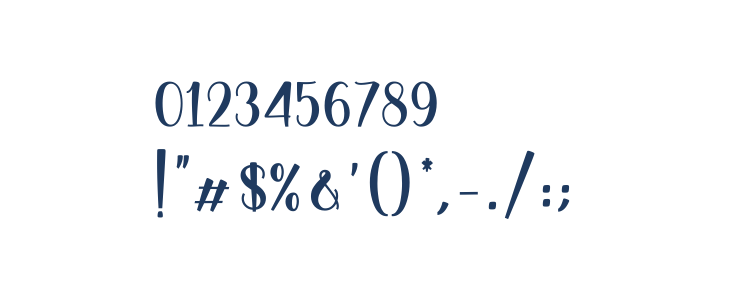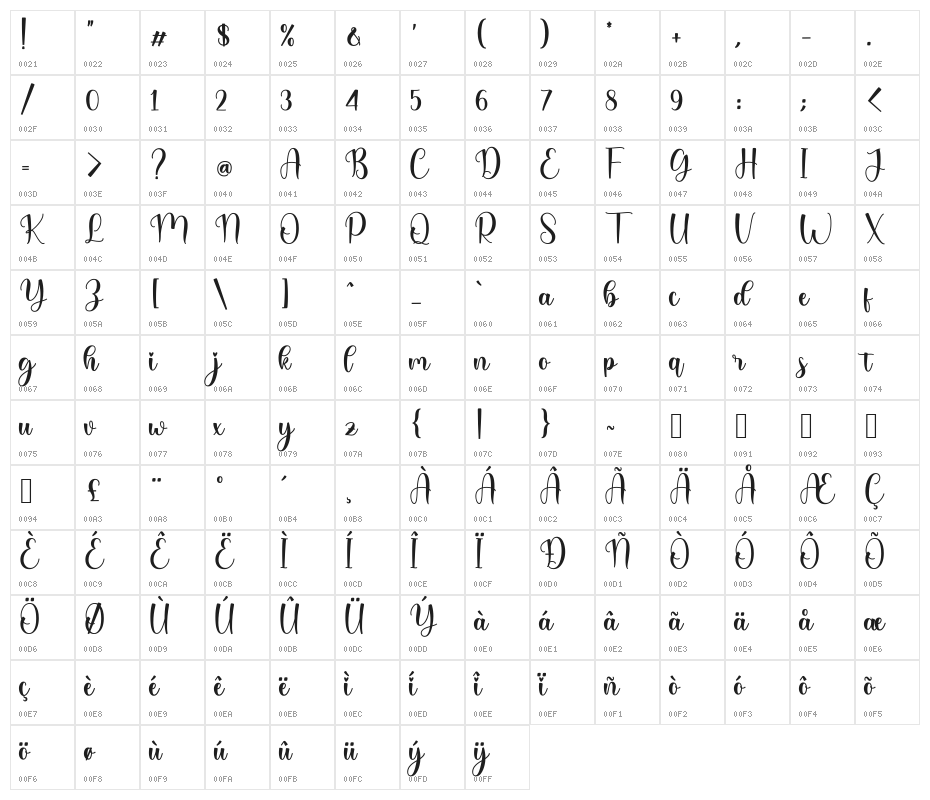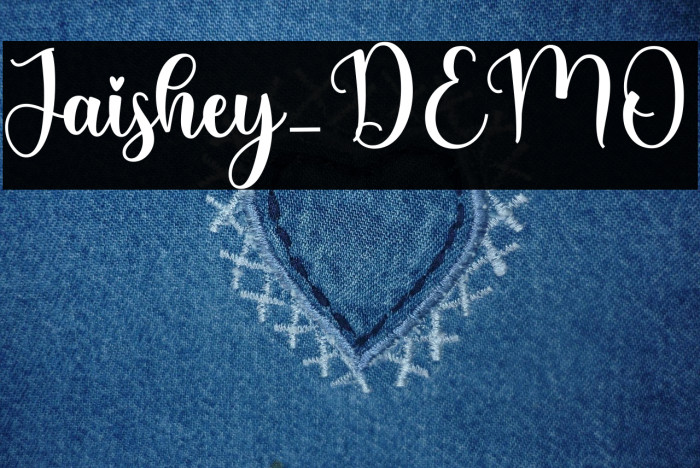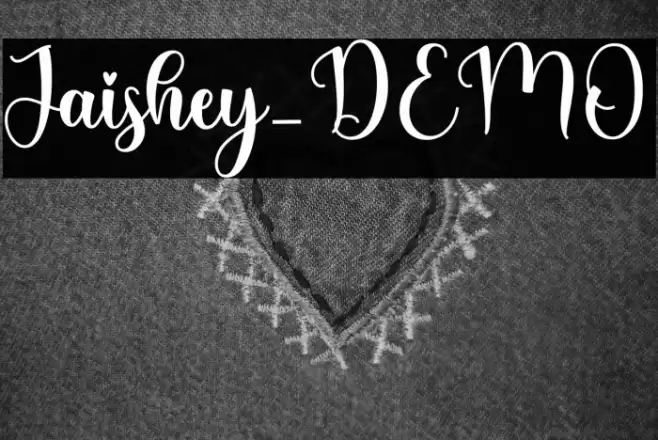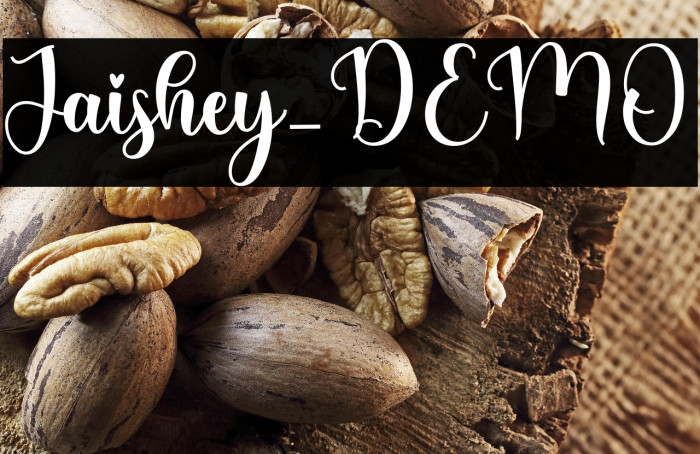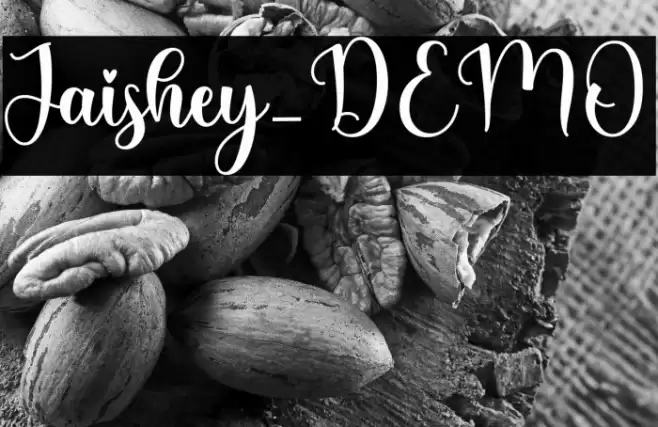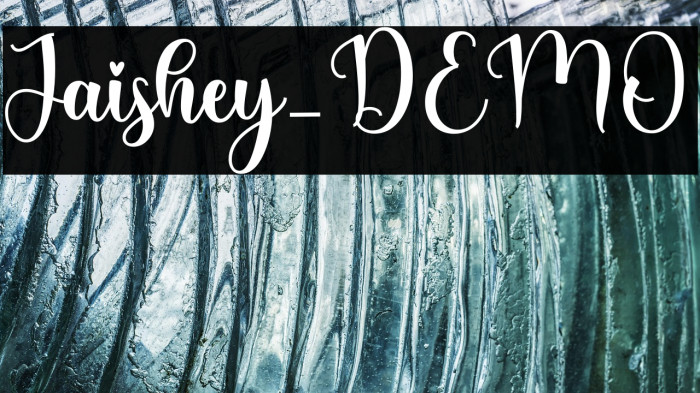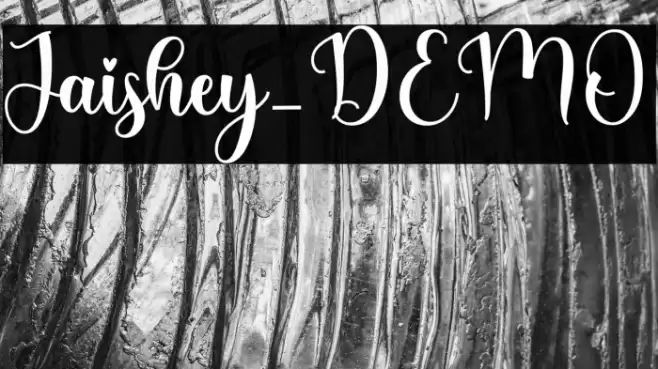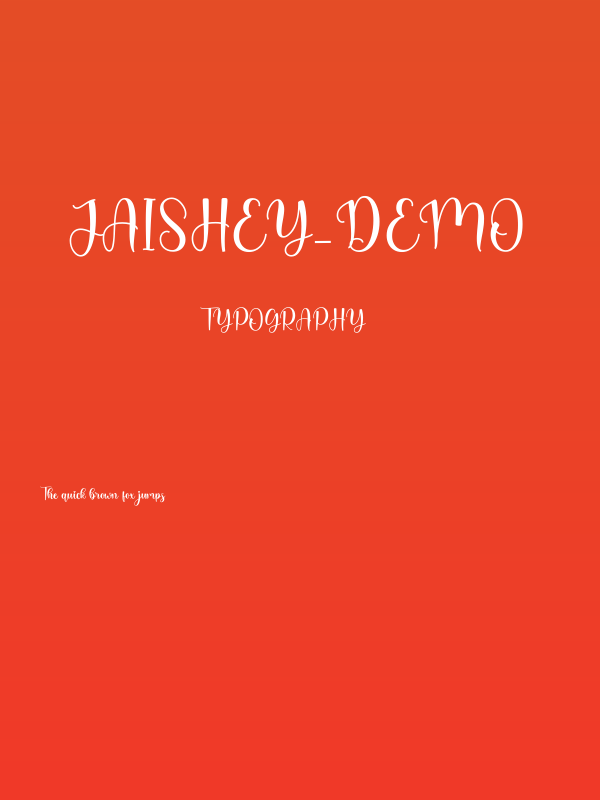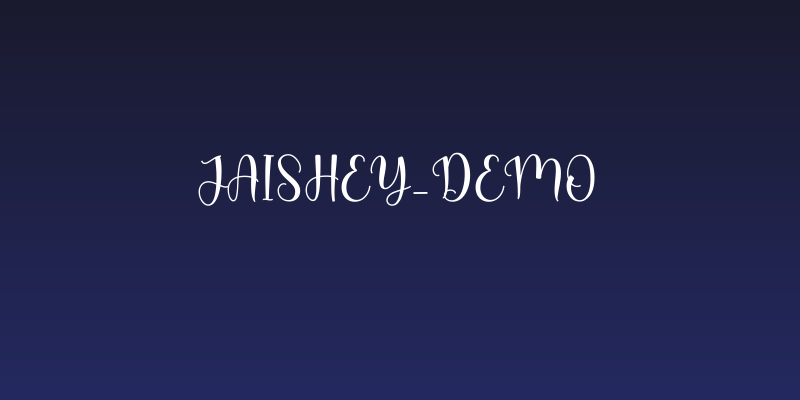
Jaishey_DEMO Font
Jaishey_DEMO Description
This font features a playful and elegant script style with a handwritten touch. The uppercase letters are bold and slightly whimsical, with varying stroke widths that add a dynamic feel. The lowercase letters maintain a consistent flow, with smooth curves and loops that enhance its cursive nature. Numbers are clear and legible, matching the overall style with a slight slant. Special characters are creatively designed, maintaining the font's unique personality. This font is perfect for adding a personal and artistic touch to any project.